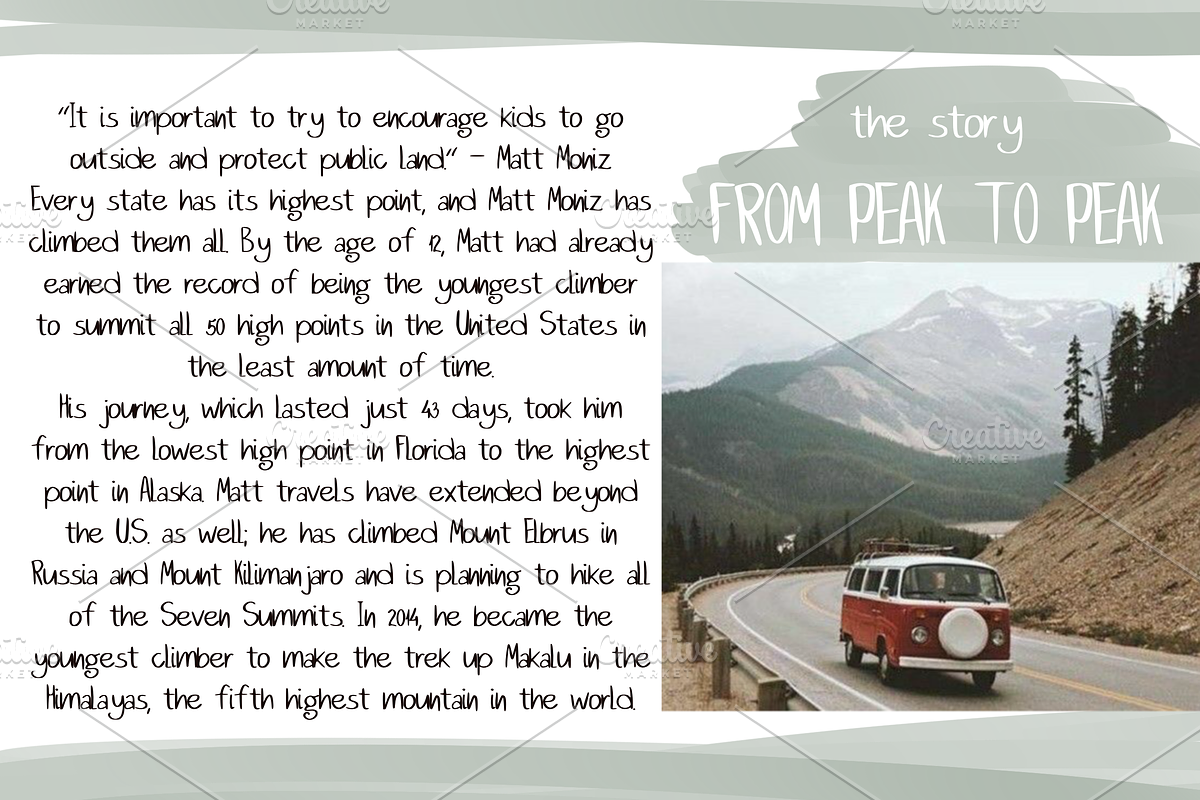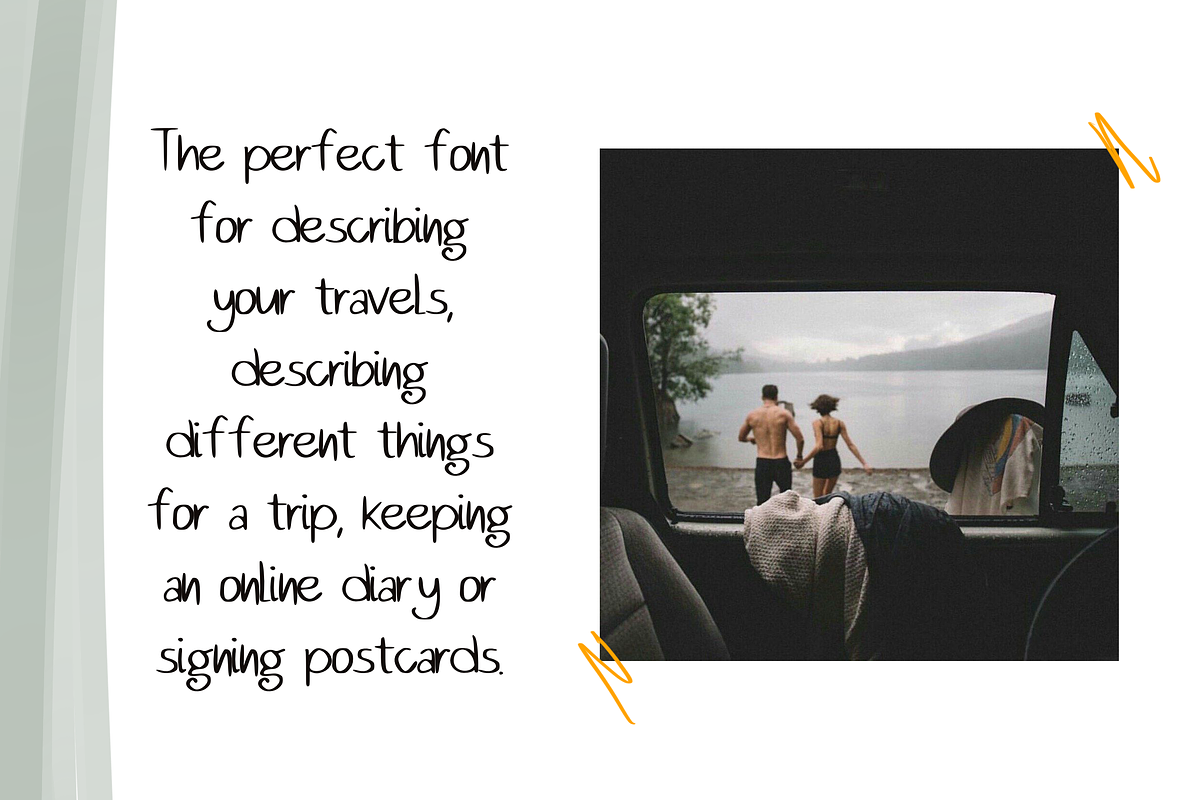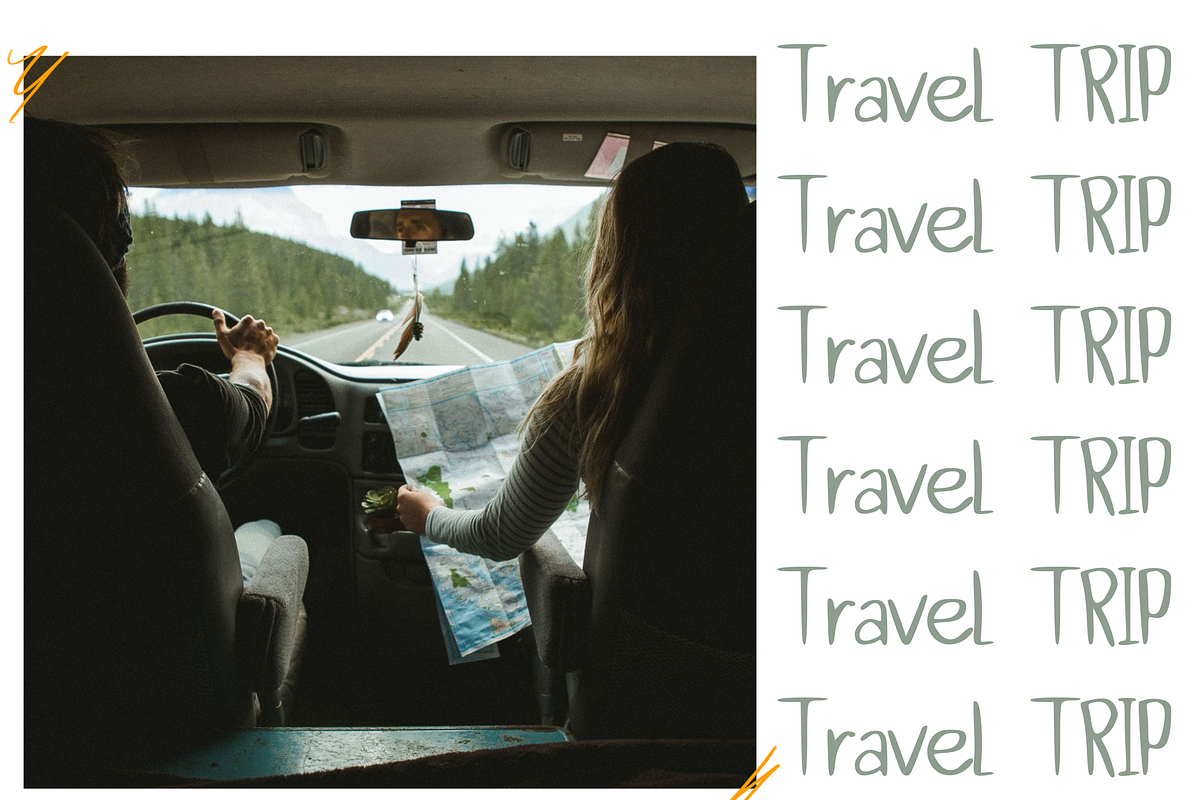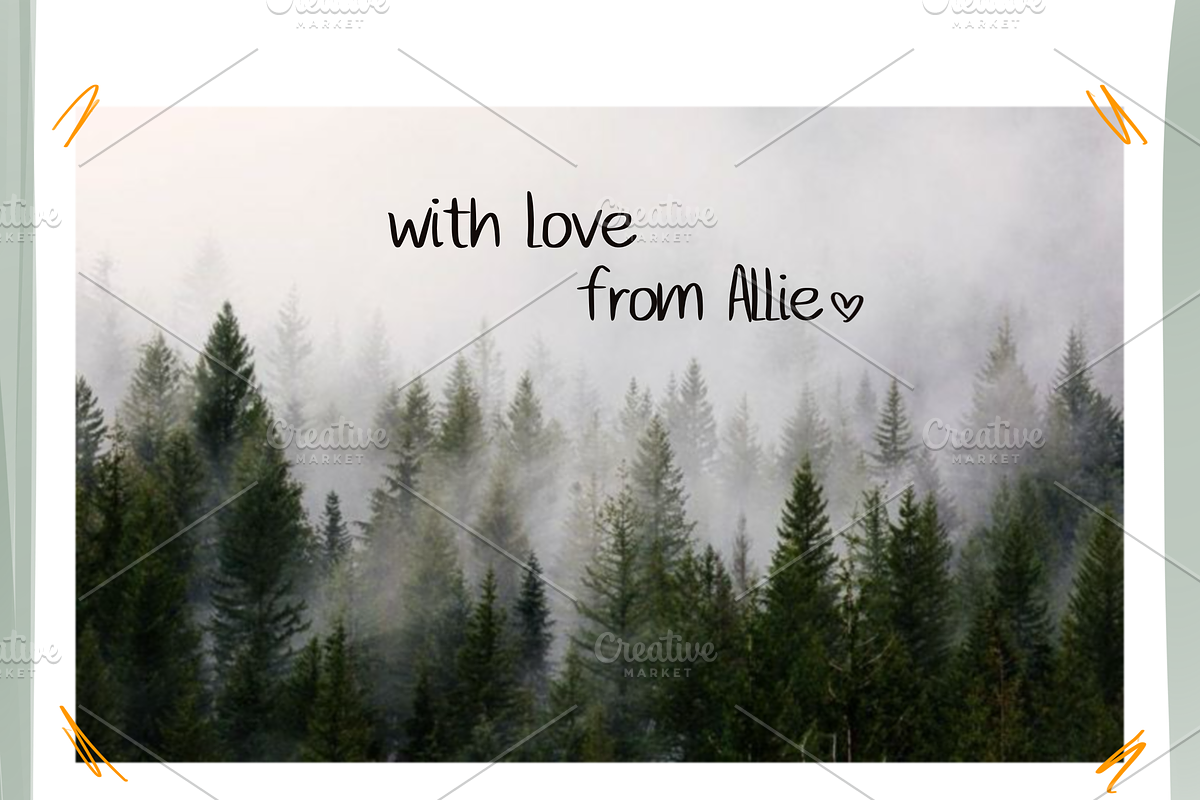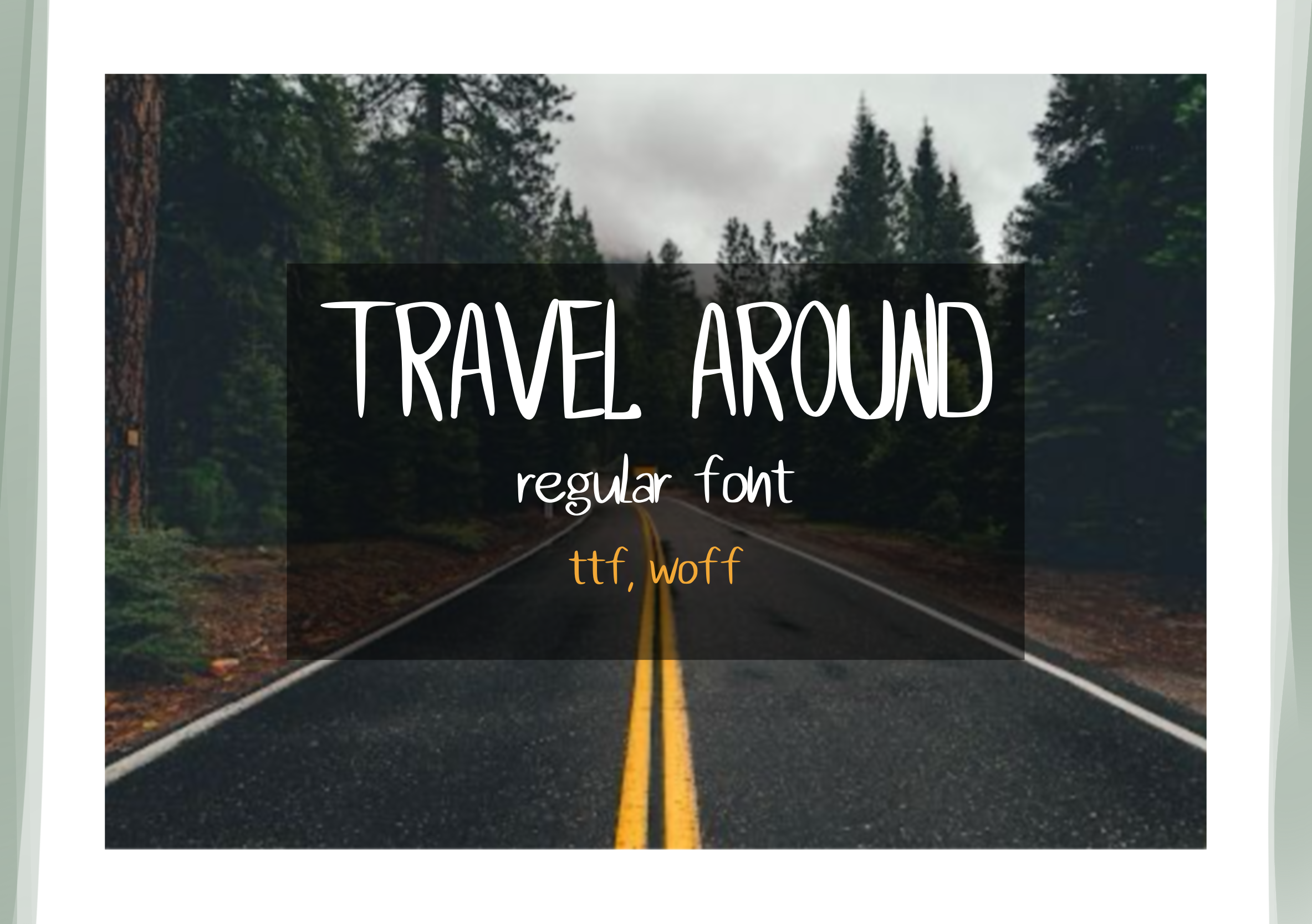
Travel Around_font
Travel Around - are handwritten font that looks so cute. Perfect for postcards, posters, flyers, social media posts, for playful branding & quotes, for quiry packaging and so much more!